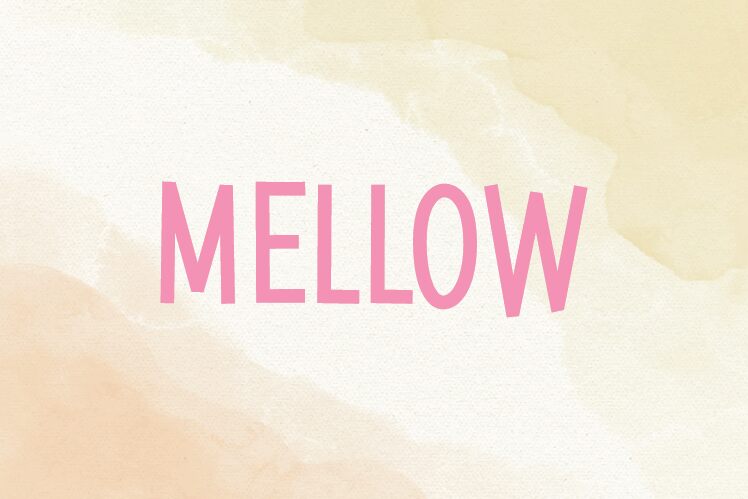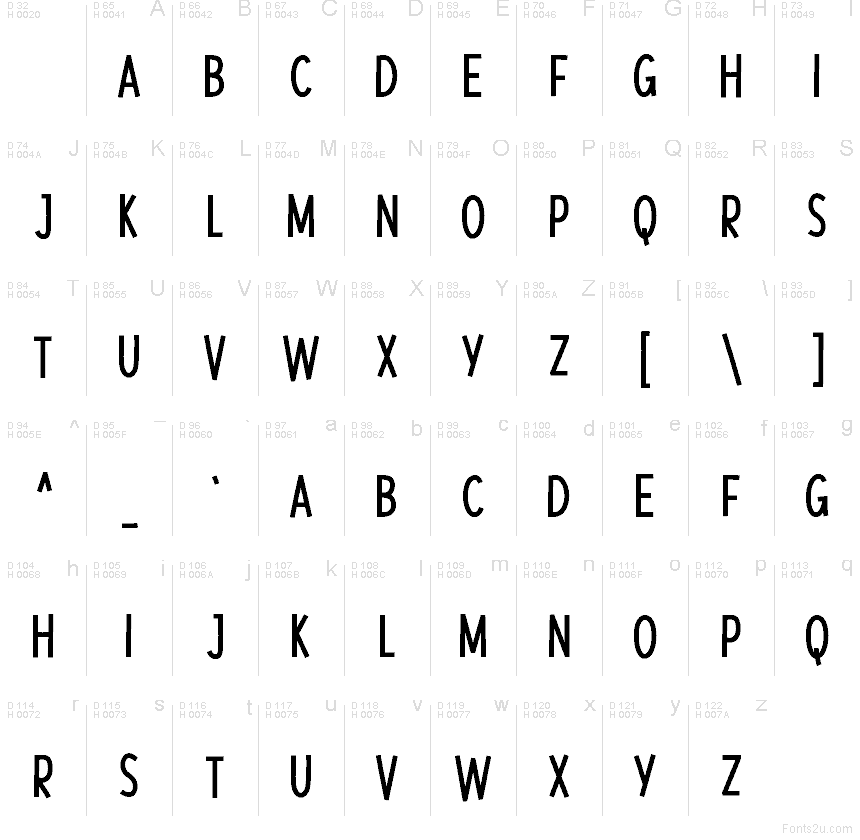
Mellow font by HannaBie Creative Studio is a free condensed display sans typeface with a wonderfully uneasy charm. Its tall, tightly packed letters feel bold and shouty, but the irregular, slightly warped strokes keep it from looking cold or mechanical. The result is a gritty, hand-cut energy that feels a bit off-kilter in the best way-like bold lettering on a weathered gig poster or underground zine.
Using Mellow, headlines instantly gain tension and attitude, making this free font a natural fit for posters, album covers, horror titles, protest graphics, edgy packaging, and bold social media visuals. The compressed width lets you squeeze big words into narrow spaces without losing impact. Pair Mellow with a clean, neutral sans in smaller text to ground its wildness and keep layouts readable.